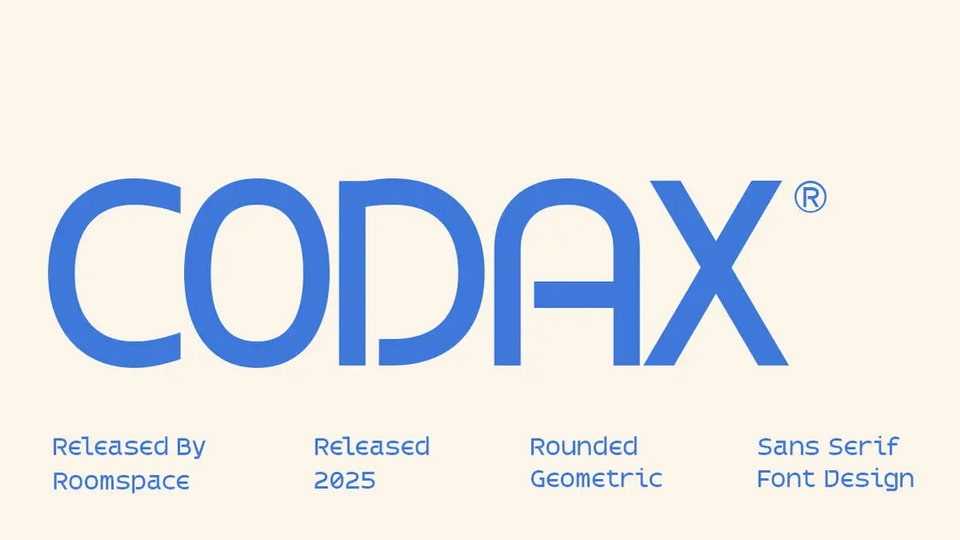
Download Codax font, a rounded geometric sans serif typeface with a clean and futuristic look. Designed with simplicity and precision, Codax gives your designs a sleek, modern tone while maintaining excellent readability.